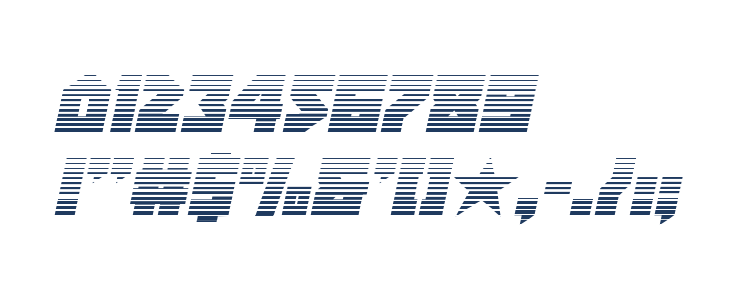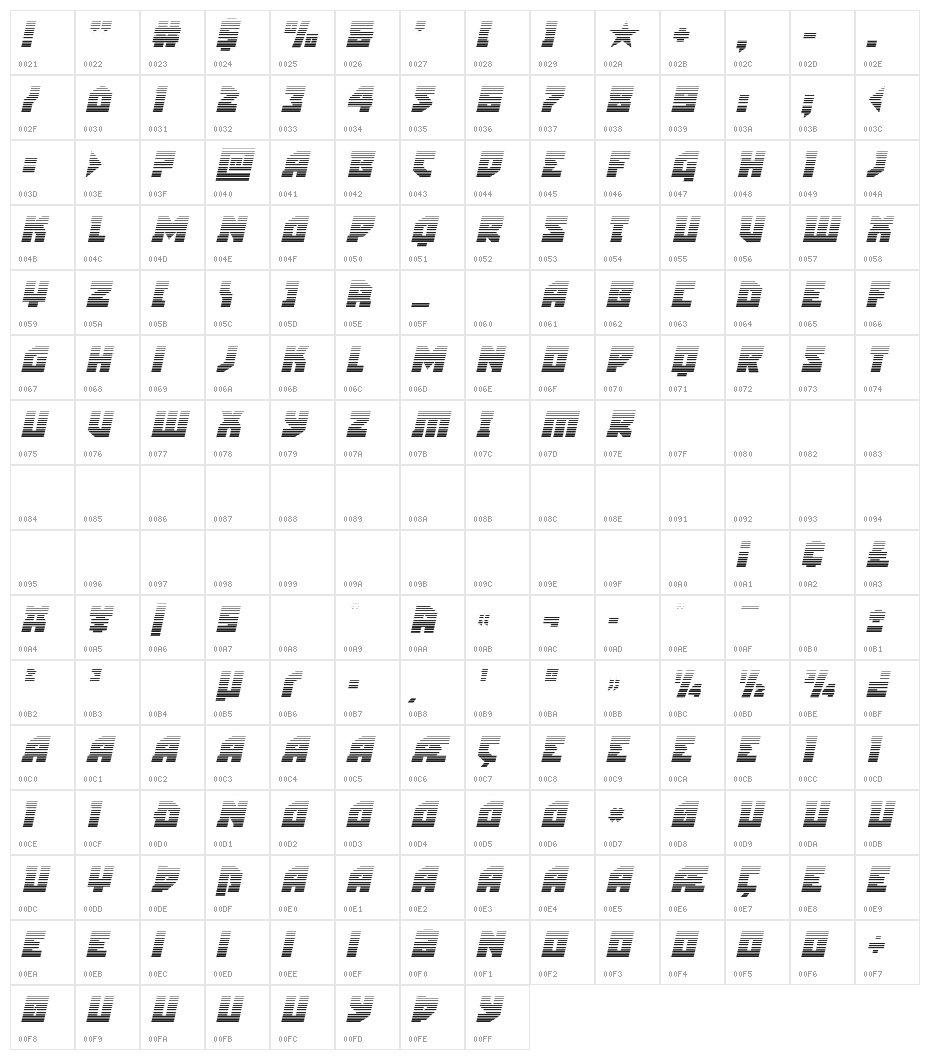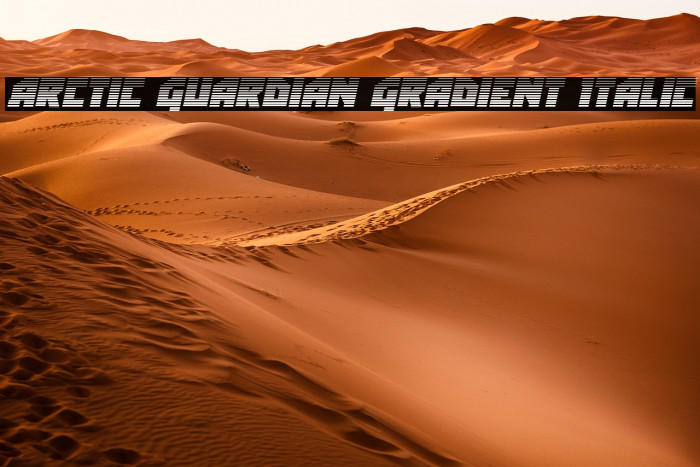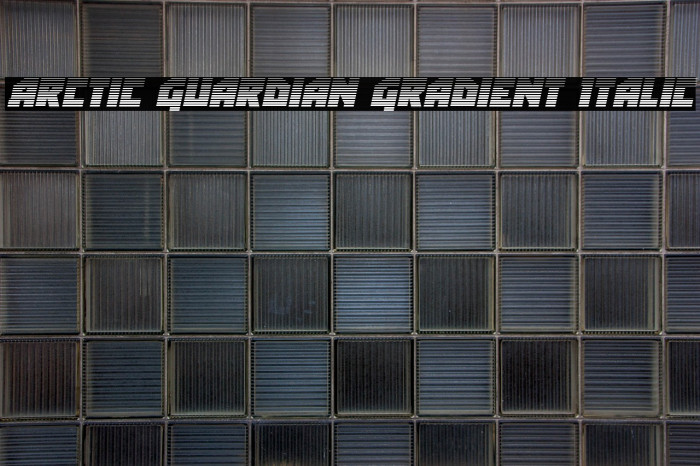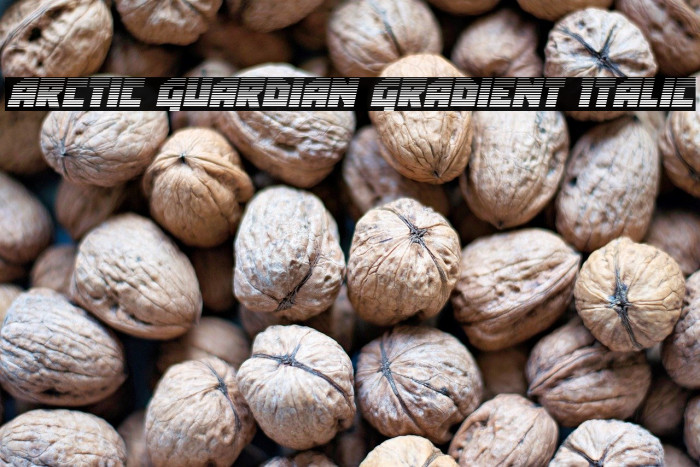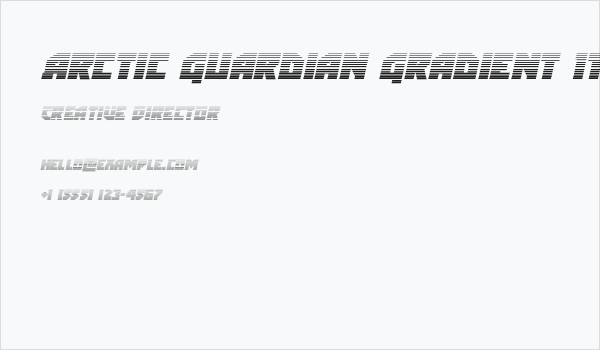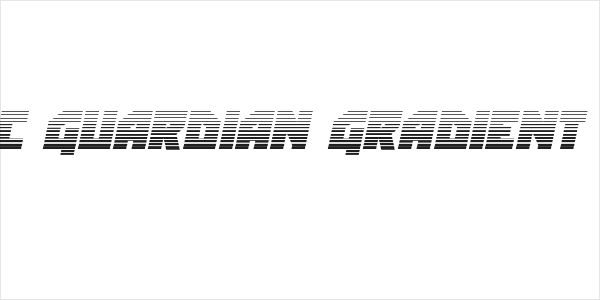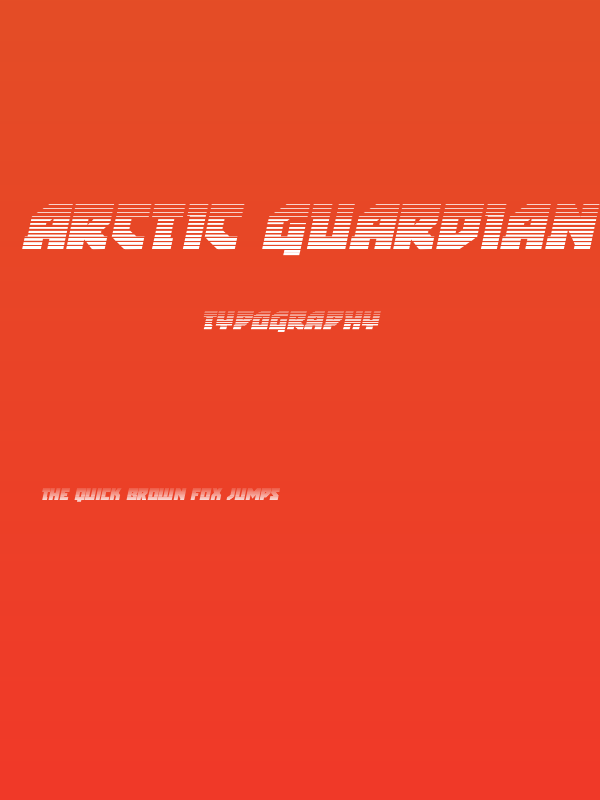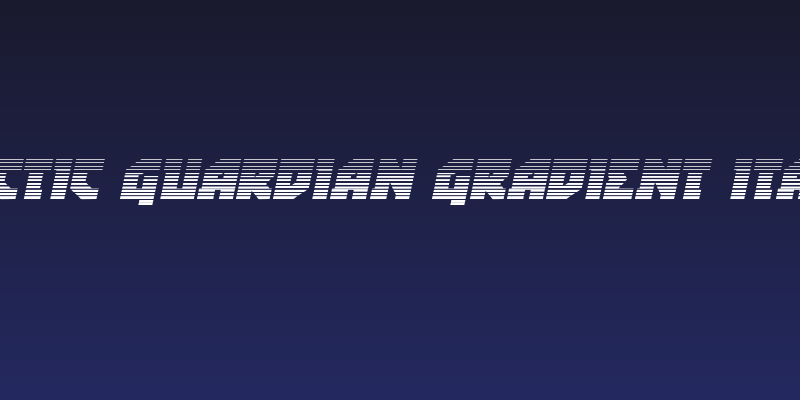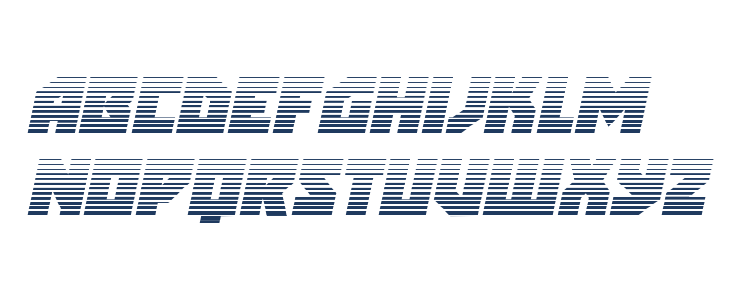
Arctic Guardian Gradient Italic Font
Arctic Guardian Gradient Italic Description
This font features a bold, futuristic design with a distinct gradient effect created by horizontal lines. The italicized style adds a dynamic and forward-leaning appearance, enhancing its modern aesthetic. Each character is composed of multiple parallel lines, giving a sense of movement and speed. The uppercase and lowercase letters maintain a consistent style, while numbers and special characters are designed to match the overall theme. The font's unique structure makes it stand out, suitable for projects that require a strong visual impact.
| Overall Style | Futuristic, Dynamic |
| Proposed Projects | Ideal for sci-fi themed posters, video game titles, futuristic branding, and dynamic logo designs. |